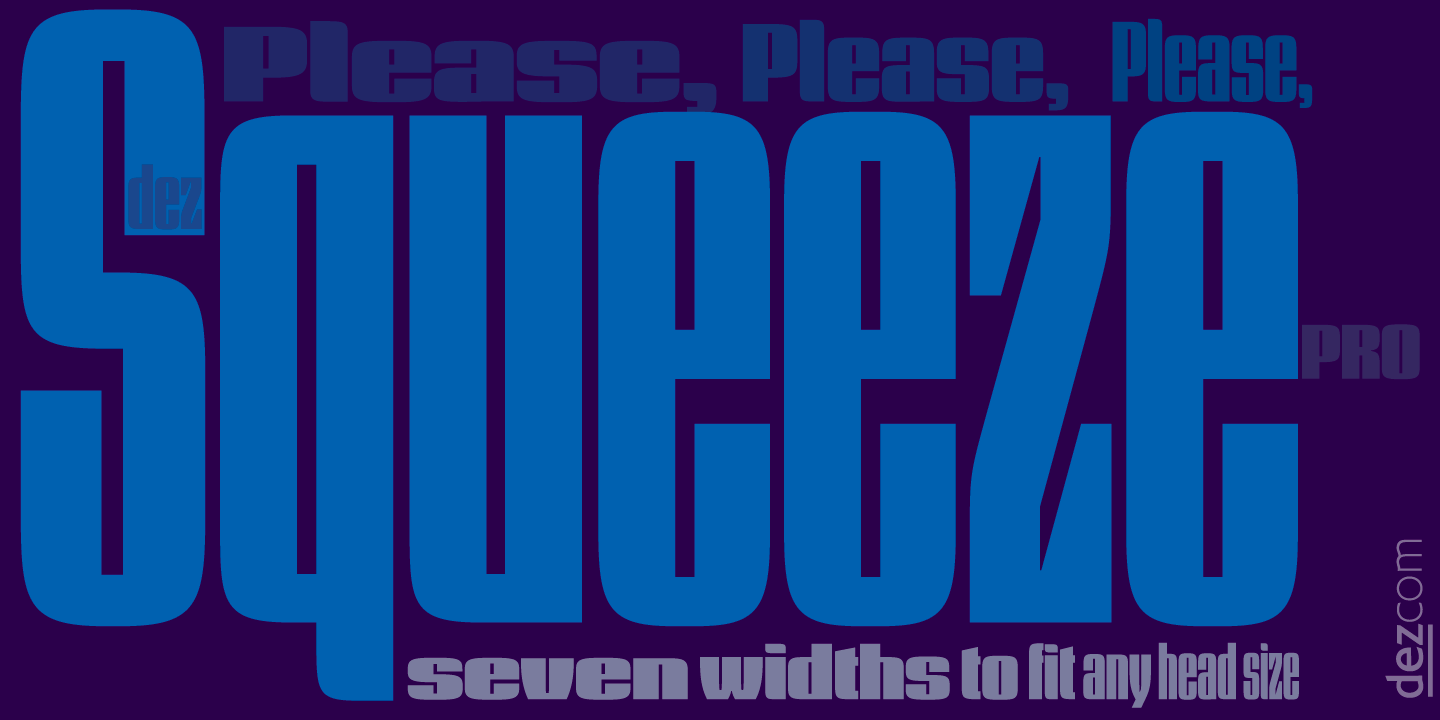
Dez Squeeze Pro Font Free Download – Bold Condensed Powerhouse
Crush your design projects with the Dez Squeeze Pro Font Free Download, an ultra-bold condensed typeface that commands attention. This aggressive sans-serif packs maximum impact into minimal space, perfect for headlines that need to punch above their weight.
Why Designers Love Dez Squeeze Pro
Extreme Condensation - 30% more text in the same space without sacrificing readability
Multiple Weights - From Squeeze Light to Black for perfect hierarchy control
Technical Precision - Engineered for maximum impact in advertising and packaging
Multilingual Support - Covers 50+ languages for global campaigns
Professional-Grade Features
OpenType Pro Features - Includes stylistic alternates and ligatures
Optimized Kerning - 500+ kerning pairs for flawless typography
Extended Character Set - Supports Central/Eastern European languages
Perfect Color Density - Maintains visual impact at any size
Test this typographic battering ram in your:
Advertising headline concepts
Packaging mockups
Event poster designs
Social media campaign visuals
Industry-Standard Applications
1. Packaging Design
Fits more product info without shrinking readability
Ideal for limited label space
2. Editorial Design
Creates dramatic section headers
Perfect for magazine cover lines
3. Sports Branding
Aggressive aesthetic for athletic apparel
Dynamic esports team logos
4. Trade Show Graphics
Readable from 30+ feet
Maximizes limited display real estate
Pro Tip: Pair with a wide sans-serif for layouts with extreme dynamic contrast!